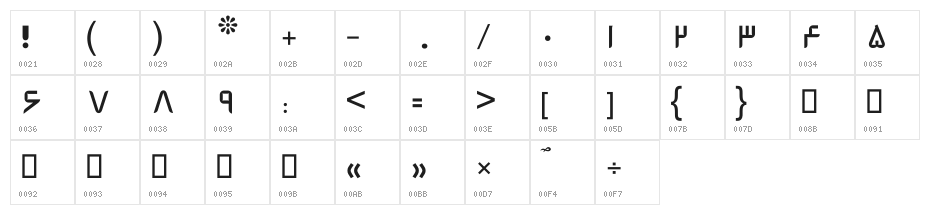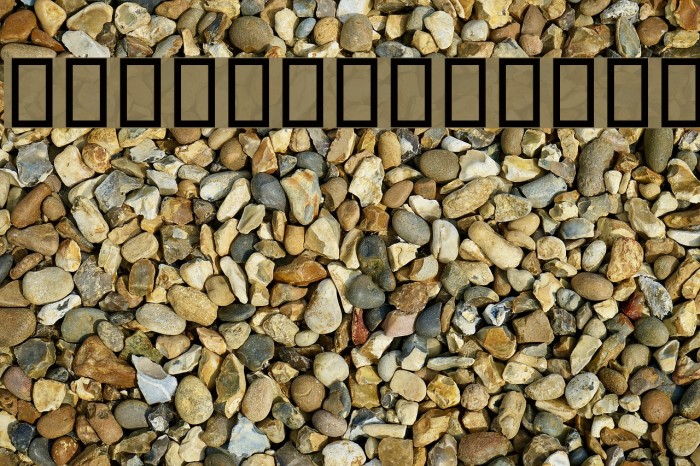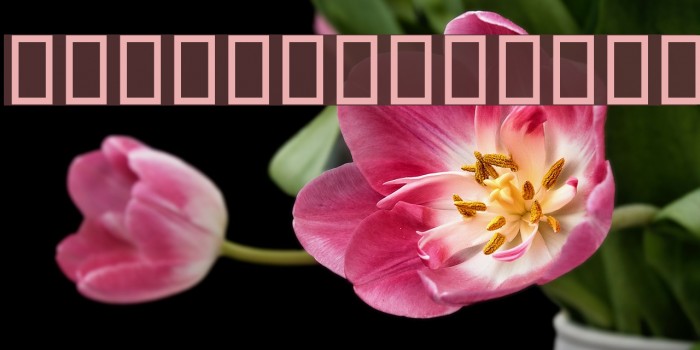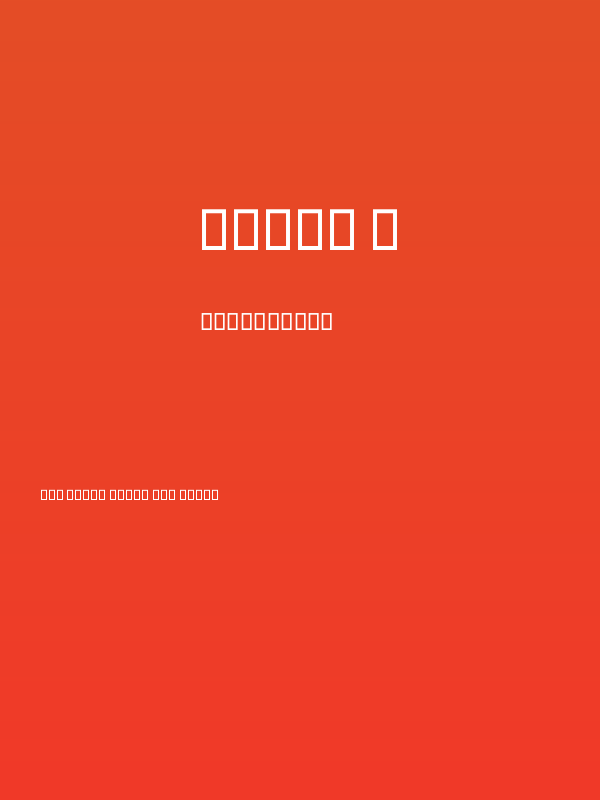
Amood V Font
Amood V Description
This font features a unique and modern design with geometric elements and a futuristic aesthetic. The characters are composed of bold, angular shapes that give it a distinctive and eye-catching appearance. The numbers and special characters maintain this angular style, contributing to a cohesive overall look. The font's design is both innovative and versatile, making it suitable for a variety of creative projects. Its boldness and geometric structure make it stand out, while the consistent line thickness ensures readability.
| Proposed Projects | Ideal for technology-related branding, sci-fi themed designs, video game interfaces, and modern advertising campaigns. |